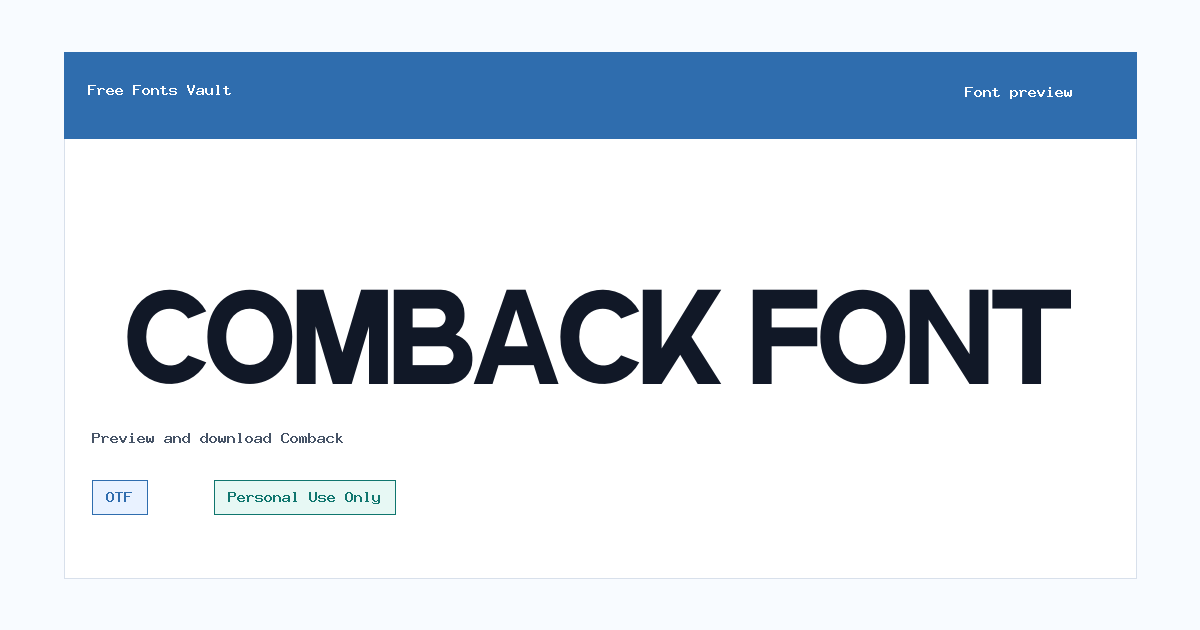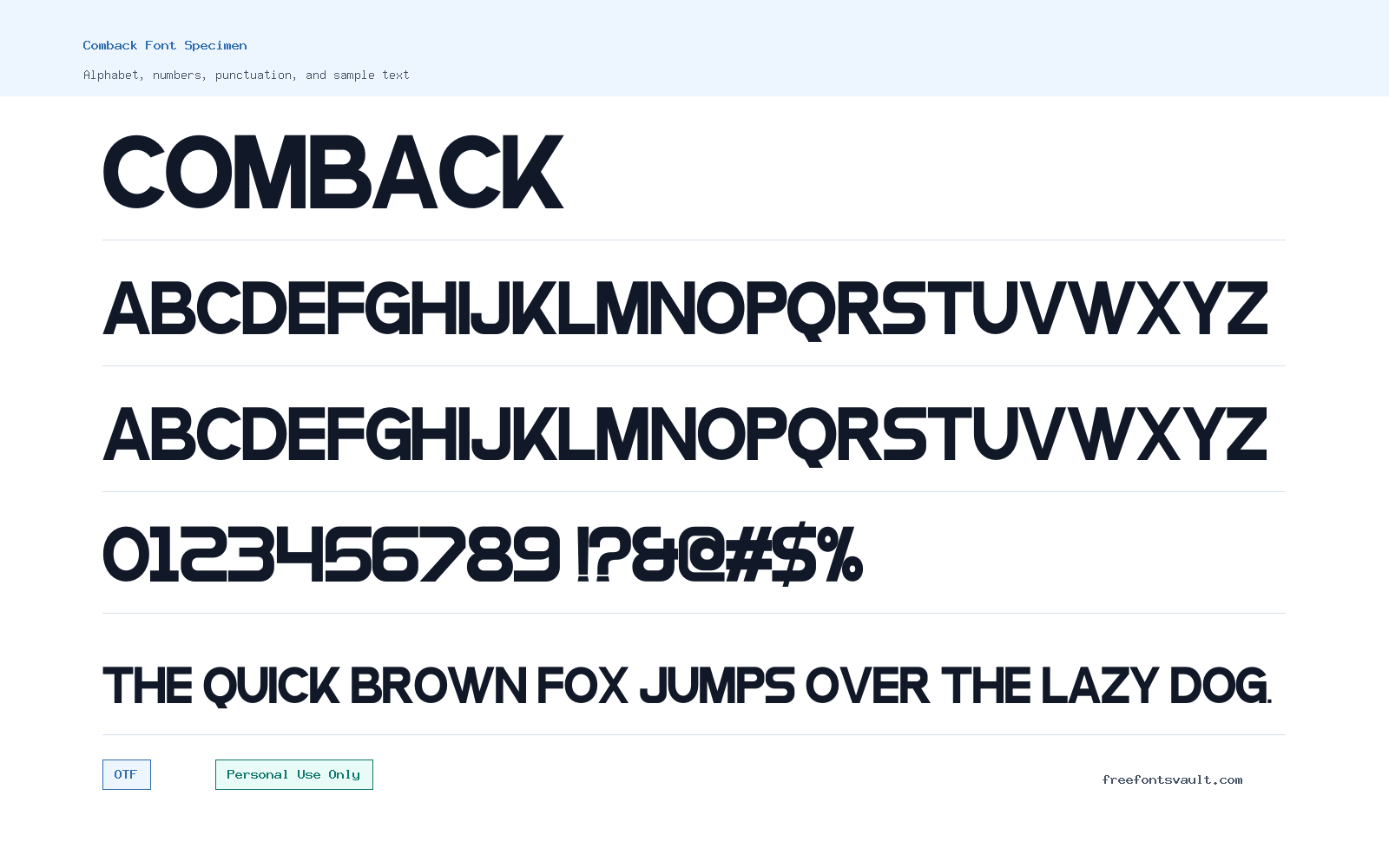
Comback
- Designer Lovian JK
- Foundry Funtype Co.
Comback is a sans serif font family with a regular OTF style for personal-use design projects. Use the preview tool to test your own words before downloading, especially if you plan to use it in headings, short labels, or display text.
Comback is listed as a sans serif font by Lovian JK and Funtype Co. The downloadable style is a regular weight OTF file, which makes it suitable for quick testing in common design apps that support OpenType fonts. Because only one regular style is included, it is best treated as a focused display or text option rather than a full multi-weight family.
- Sans serif classification with a simple one-style setup for personal projects.
- Personal posters, social graphics, headers, and short display text.
- Testing brand-style words, labels, thumbnails, and simple layout concepts.
The designer is listed as Lovian JK, with Funtype Co. listed as the foundry.
Who designed Comback?
Comback is credited to Lovian JK, with Funtype Co. listed as the foundry.